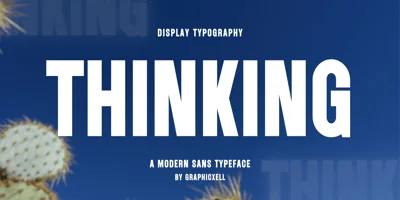
Thinking Font
Thinking Font is perfect for educational materials, academic publications, philosophical blogs, research presentations, corporate training materials, intellectual property branding, and modern tech interfaces. This thoughtful typeface enhances readability while conveying intelligence and analytical depth in any design project.
What makes Thinking Font exciting is its unique ability to communicate clarity of thought and intellectual sophistication. The font features carefully balanced proportions, optimized character spacing, and subtle design elements that reduce eye strain during extended reading sessions. Its contemporary approach to traditional letterforms creates a perfect harmony between innovation and reliability, making complex information more accessible and engaging.
The Thinking Font family includes multiple weights from thin to extra bold, complete with matching italics and condensed variations. The comprehensive character set supports extensive multilingual typography, mathematical symbols, scientific notation, and specialized academic ligatures. Advanced OpenType features include contextual alternates, stylistic sets, and professional typographic refinements for enhanced text composition.
Whether you're designing educational platforms, creating intellectual content, or developing knowledge-based applications, Thinking Font provides exceptional versatility and performance. This intelligent typeface transforms dense information into visually appealing and easily digestible content, helping readers focus on ideas rather than struggling with typography while maintaining professional credibility across all communication channels.